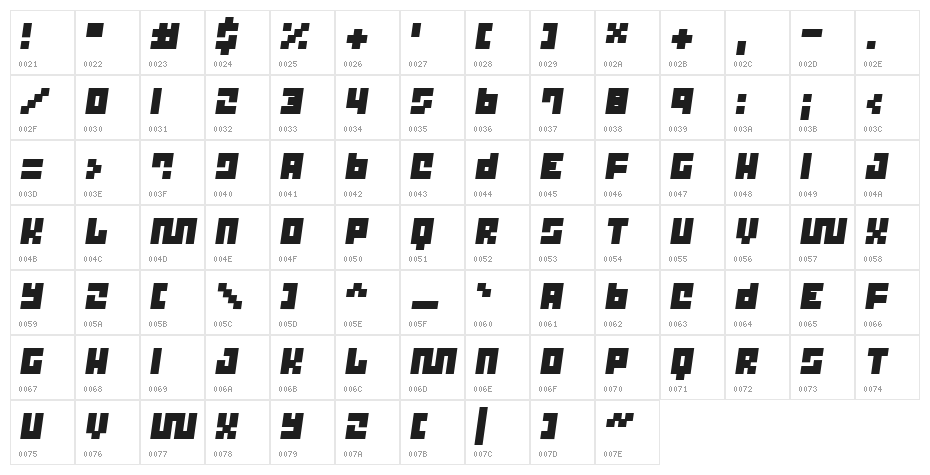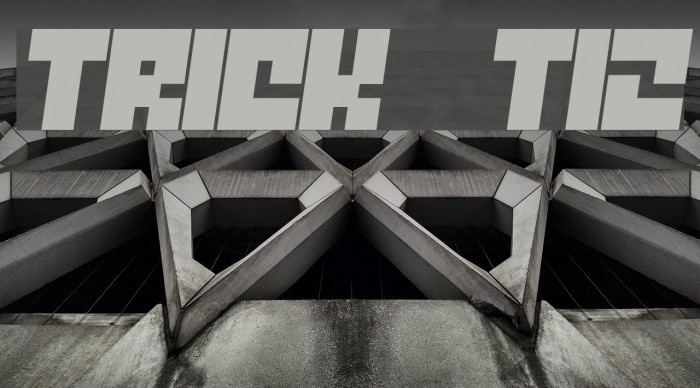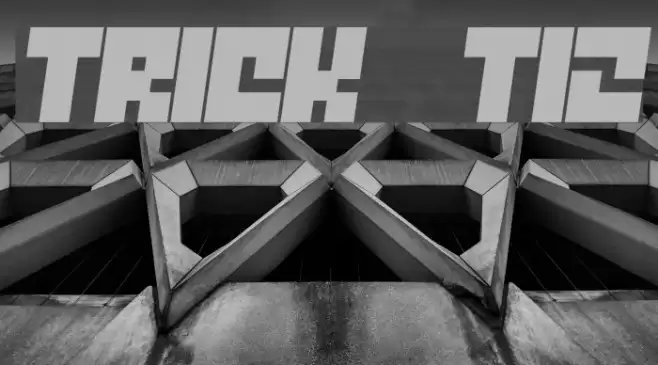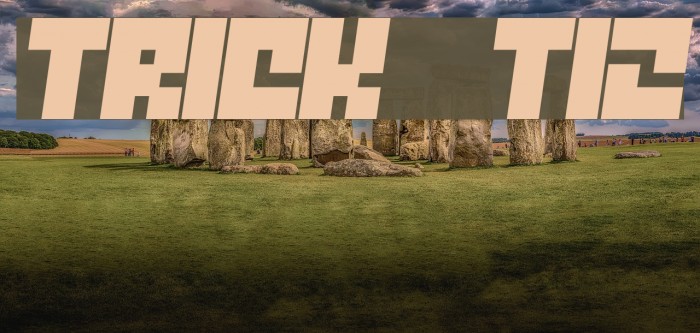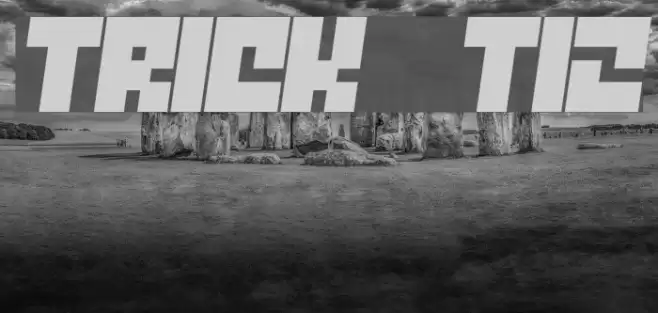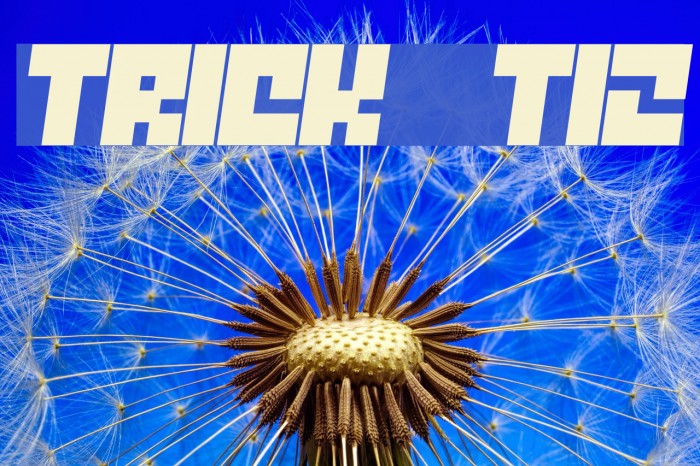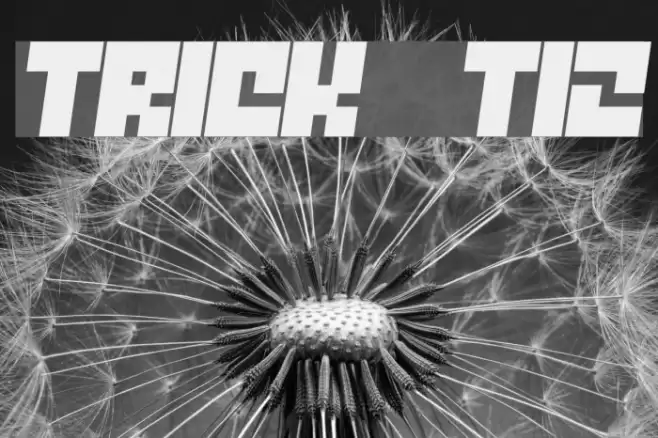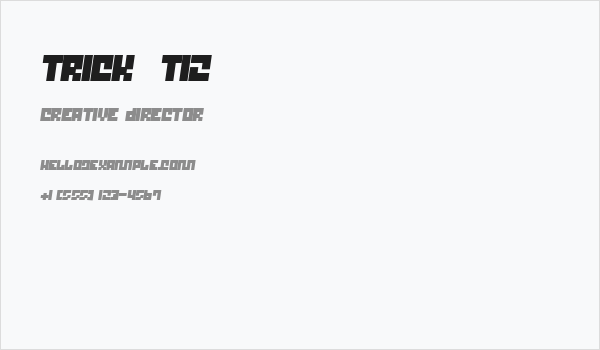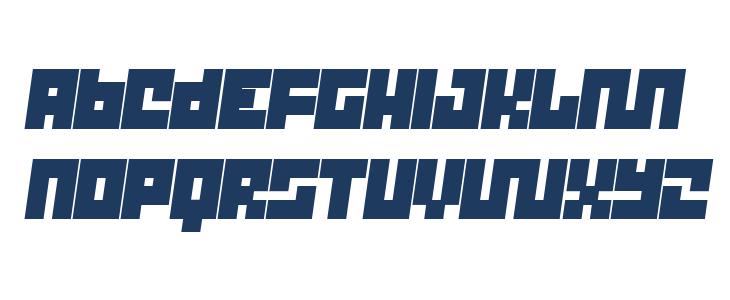
Trick T12 Font
Trick T12 Description
This font features a bold and geometric design with a distinctly modern and futuristic aesthetic. The characters are constructed with sharp angles and straight lines, giving them a blocky and robust appearance. The uppercase and lowercase letters maintain a consistent style, with the lowercase being slightly smaller but equally bold. Numbers and special characters follow the same design principles, ensuring uniformity across all glyphs. The font's heavy weight and solid structure make it highly visible and impactful, suitable for attention-grabbing designs.
| Proposed Projects | Ideal for video game titles, tech branding, posters, and any project requiring a strong, modern look. |